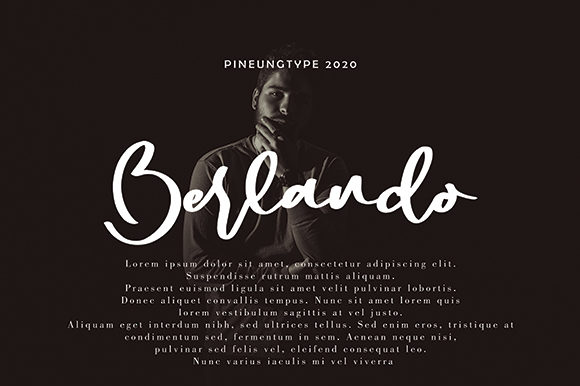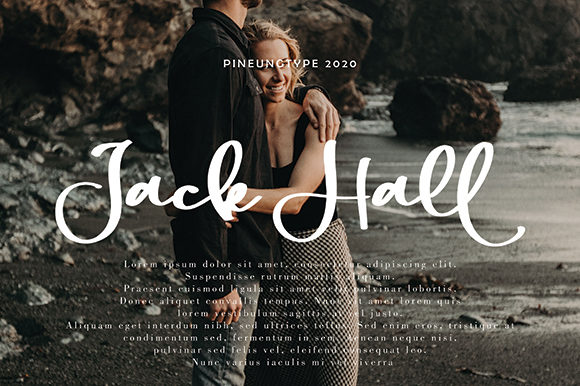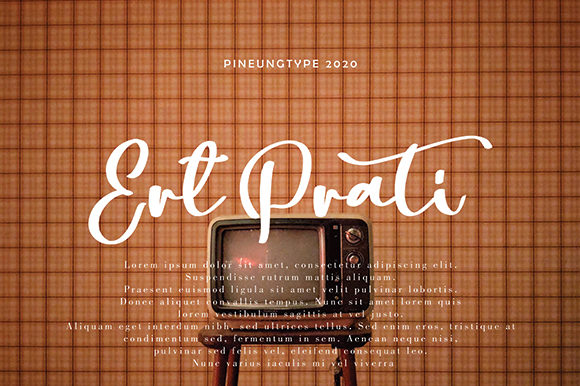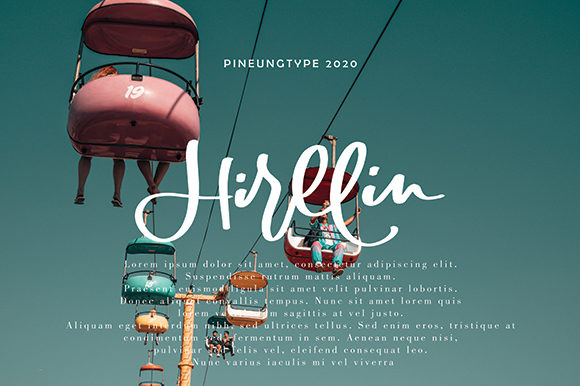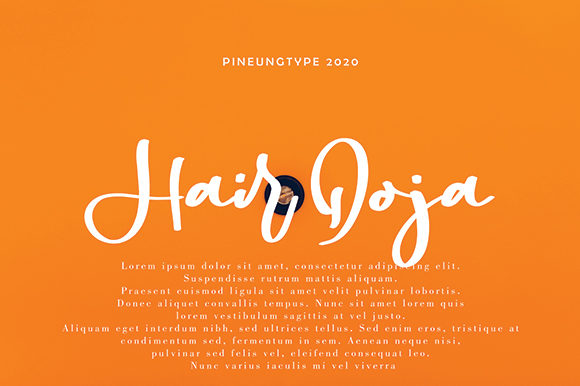
HomeScript FontsBeri Sintta Font Script Fonts Beri Sintta Font FacebookXPinterestWhatsApp Beri Sintta Font Poster 2 Beri Sintta Font Poster 3 Beri Sintta Font Poster 4 Beri Sintta Font Poster 5 Beri Sintta Font Poster 6 About Beri Sintta Font Beri Sintta is a playful, yet elegant script font that radiates personality. Get inspired by its unique charm! DOWNLOAD NOW People also explored Palochev Font Mouse Memoirs Pro Laracryf Font Stagnan Font Handmade Font Sometimes Font Cute Dog Font Sutro Deluxe Font History Font 350 0 TagsBeri Sintta Font Previous articleColesberg FontNext articleAuklander Font LEAVE A REPLY Cancel reply Comment: Please enter your comment! Name:* Please enter your name here Email:* You have entered an incorrect email address! Please enter your email address here Website: Save my name, email, and website in this browser for the next time I comment. Personal Use Free Multicolore Personal Use Free Read more about this font Yukarimobile Personal Use Free Read more about this font Avatarock Personal Use Free Read more about this font Valentine Chips Personal Use Free Read more about this font BLOG Top 7 Google Fonts Alternatives for Faster and Privacy-Friendly Web Design (2025) Top 7 Google Fonts Alternatives for Faster and Privacy-Friendly Web Design (2025) When it comes to web typography, Google Fonts has long been the go-to... Best Fonts for T-Shirt Design – Top 2025 Picks Best Fonts for YouTube Videos: Make Your Thumbnails Stand Out How to Cut Any Font on Cricut: Convert a Font to SVG (Free)